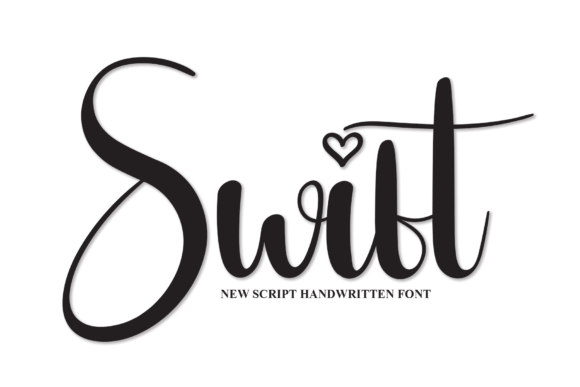
Introducing Swift Font, the perfect script font for all your creative endeavors. Created by the talented team at Misterletter.co, this lovely handwritten font exudes elegance and charm, making it an ideal choice for a wide range of projects.
With its latest style letters, Swift Font adds a unique and personal touch to any design. Whether you're creating wall displays, wedding invitations, social media post logos, advertisements, or product packaging, this font will elevate your creations to new heights.
Imagine the impact of using Swift Font on your product designs or labels. Its tasteful handwriting instantly captivates the viewer, leaving a lasting impression. Your photography will come to life with the addition of this stunning font, enhancing the visual storytelling of your images.
Invitations and stationery become works of art when adorned with Swift Font. Its elegant curves and graceful strokes add a touch of sophistication to any event. Whether it's a wedding, birthday, or corporate gathering, this font sets the tone for a memorable and stylish celebration.
But Swift Font isn't just aesthetically pleasing, it's also incredibly versatile. Its keyword, "Font For Shirt Design," speaks to its ability to enhance any apparel project. From t-shirts to hoodies, caps to tote bags, incorporating Swift Font into your designs will instantly grab attention and make a statement.
What sets Swift Font apart from other script fonts is its ability to evoke emotion. Its handwritten style creates a sense of authenticity and warmth, resonating with viewers on a deeper level. It adds a personal touch to your branding, making your products more relatable and approachable.